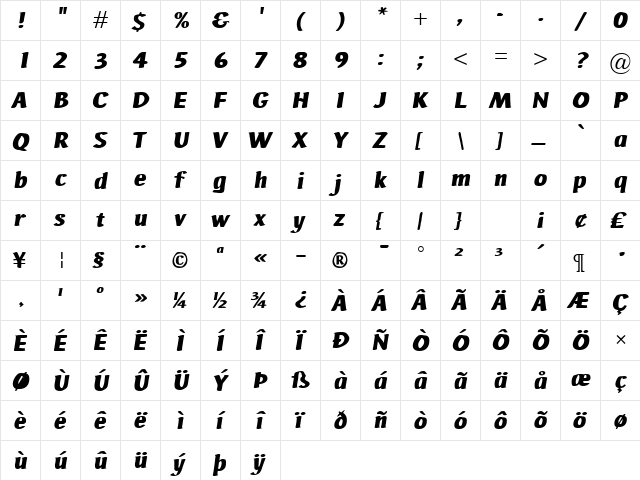
Ad Hoc Bis Italic
Design Context for Ad Hoc Bis Typeface
Ad Hoc Bis takes a measured approach to typography — its balanced proportions and neutral character make it a reliable workhorse for both digital and print work. Its italic angle brings a sense of urgency and motion to the letterforms.
Pro Tip: Try Ad Hoc Bis for annotation and caption copy alongside an upright companion — the contrast in angle creates a dynamic but ordered typographic system.